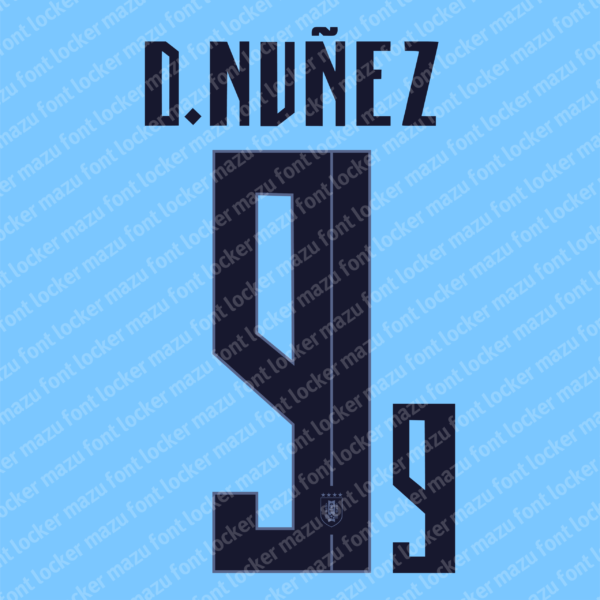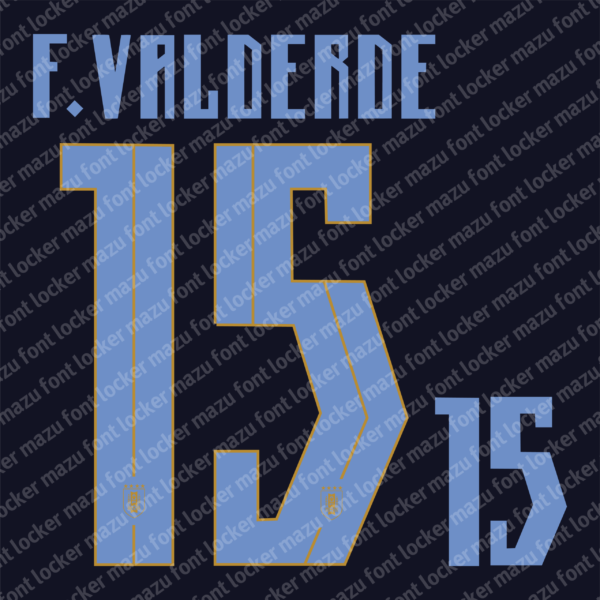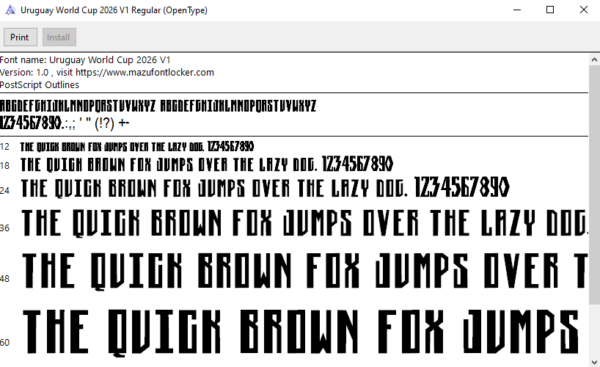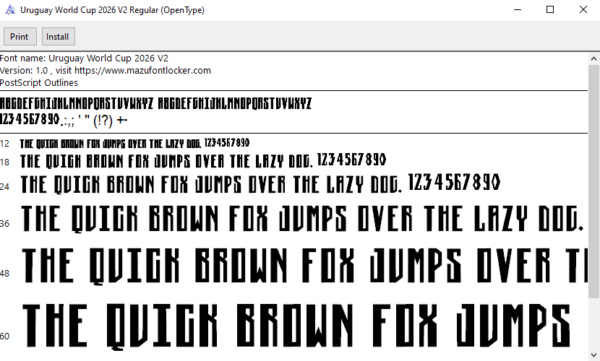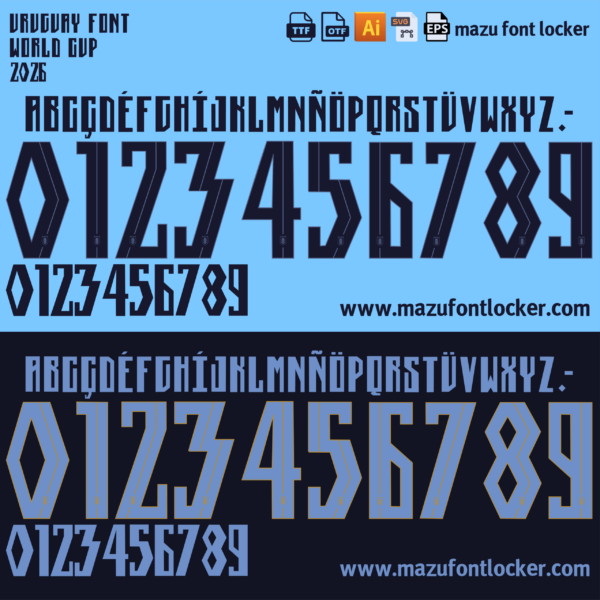
Uruguay World Cup 2026 Font Vector – Unstoppable Celeste Warriors Masterpiece
This premium font faithfully recreates the official match lettering worn by Uruguay during the FIFA World Cup 2026 — delivering authentic Uruguayan football heritage, legendary South American tradition, two-time world champion prestige, fearless competitive spirit, tactical discipline, unwavering national pride, and the unmistakable sky-blue identity that has inspired generations of football fans across the globe.
Uruguay World Cup 2026 Font Vector – Legendary La Celeste Tournament Typeface
The Uruguay World Cup 2026 Font Vector is a premium typeface that accurately recreates the official match lettering worn by the Uruguay national football team during the 2026 FIFA World Cup. This high-quality vector font kit captures the bold, modern, and distinctive typography featured on Uruguay’s tournament kits, perfectly complementing the nation’s iconic sky-blue identity that has become synonymous with one of the most successful national teams in football history.
Designed for professional designers, football enthusiasts, collectors, and passionate Uruguay supporters, the Uruguay World Cup 2026 Font Vector delivers exceptional authenticity for creating realistic jersey mockups, football merchandise, social media graphics, tournament posters, and custom fan artwork. Every character has been carefully recreated to reflect the official shirt lettering used throughout the 2026 FIFA World Cup.
This font stands out thanks to its precise vector construction and tournament-accurate styling. Every letter and numeral has been meticulously recreated to match the official jersey typography worn by Uruguay during the 2026 FIFA World Cup. Whether you’re producing realistic kit concepts or creating eye-catching football content, the Uruguay World Cup 2026 Font Vector delivers a genuine professional appearance.
The lettering featured in the Uruguay World Cup 2026 Font Vector combines bold geometric forms with clean contemporary proportions. The result is a highly readable and professional design that reflects the pride, tradition, and competitive spirit of La Celeste on football’s biggest stage.
The numerals feature sharp contours, balanced spacing, and excellent visibility for international competition. Built entirely as scalable vectors, every number remains crisp for jersey customization, digital graphics, posters, and large-format printing.
• Complete uppercase A–Z alphabet and numbers 0–9 in authentic Uruguay World Cup 2026 style
• Includes authentic federation crest glyph placement beneath player numbers
As two-time FIFA World Cup champions and one of South America’s traditional football powers, Uruguay continues to inspire generations of supporters with its commitment to excellence. The 2026 tournament provides another platform for La Celeste to showcase its iconic sky-blue colors and proud footballing tradition on the global stage.
The Uruguay World Cup 2026 Font Vector is an independently designed typeface package inspired by the official shirt lettering used during the 2026 FIFA World Cup. It has been carefully recreated for football enthusiasts, graphic designers, collectors, and creators producing custom jersey concepts, tournament artwork, and fan-made projects.